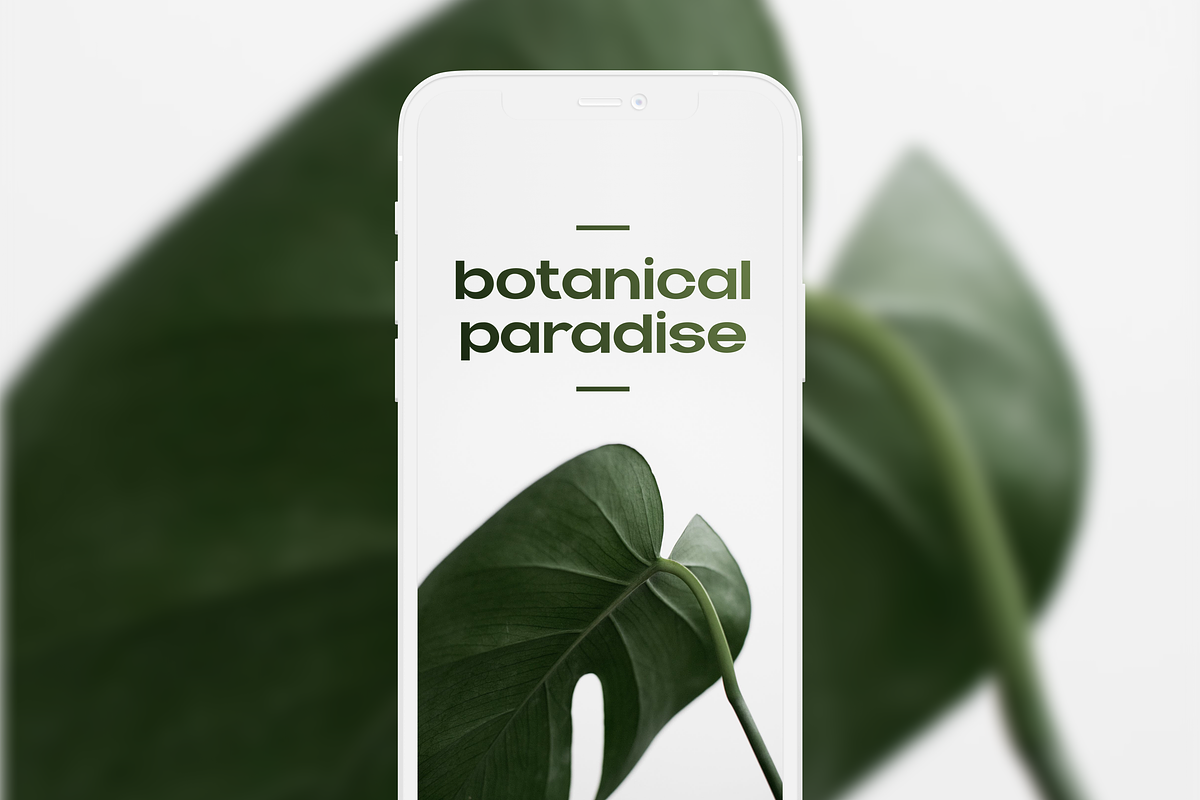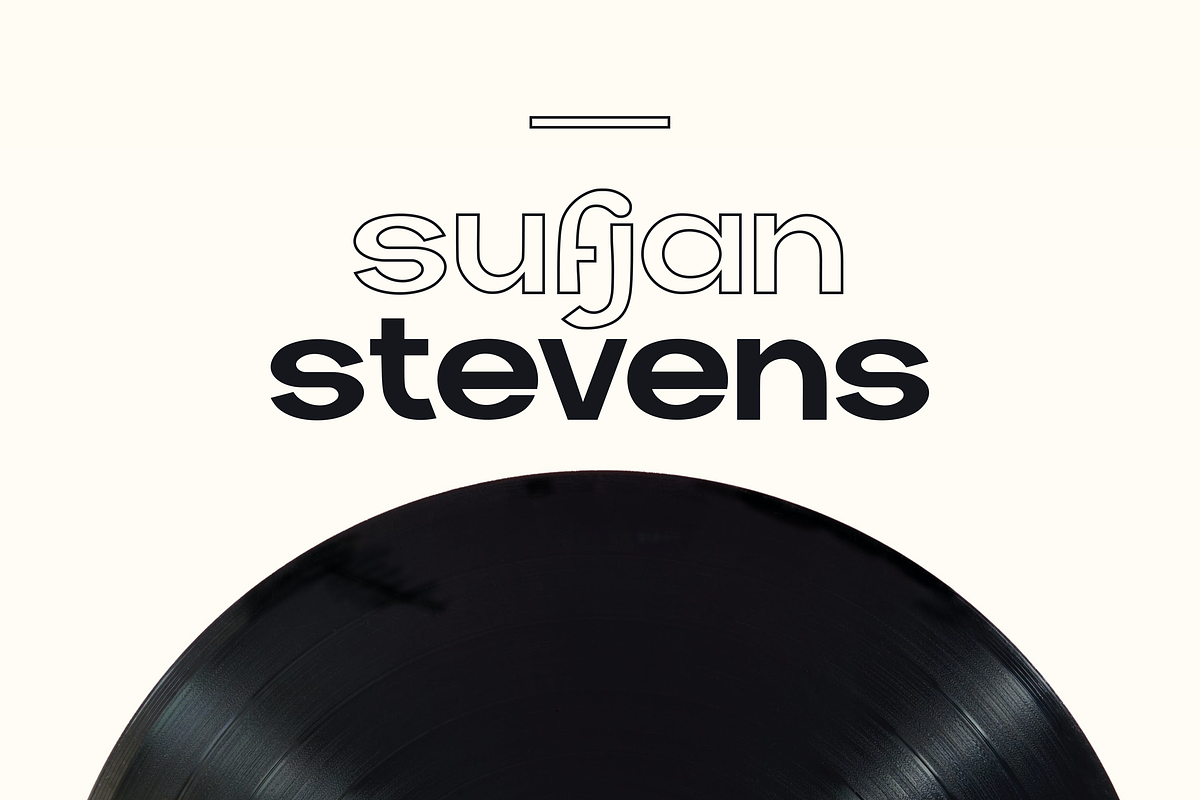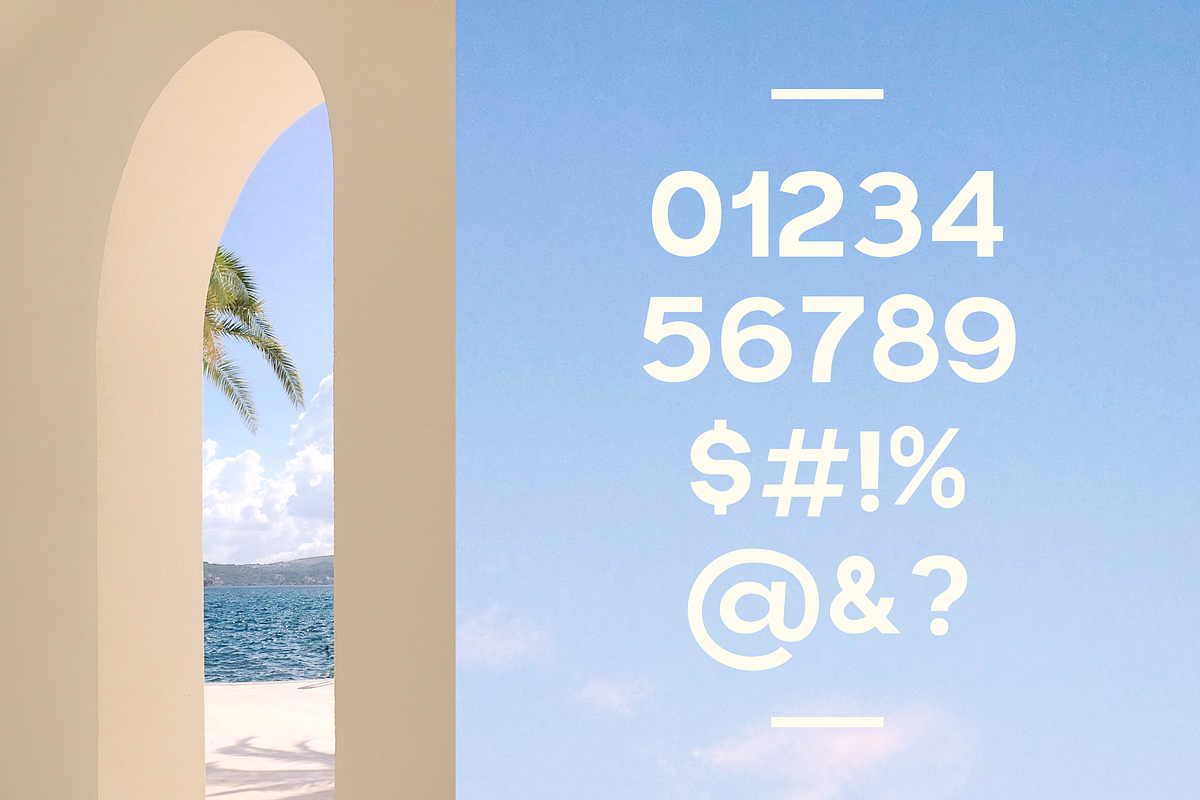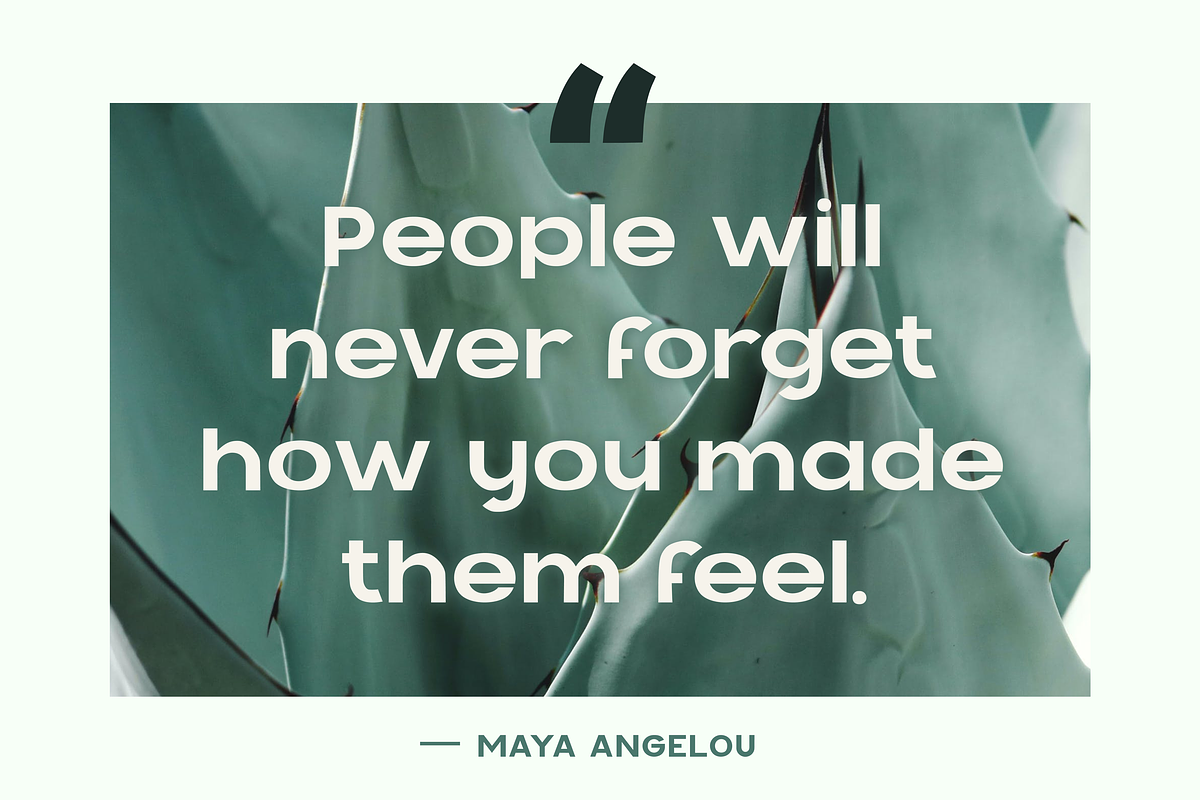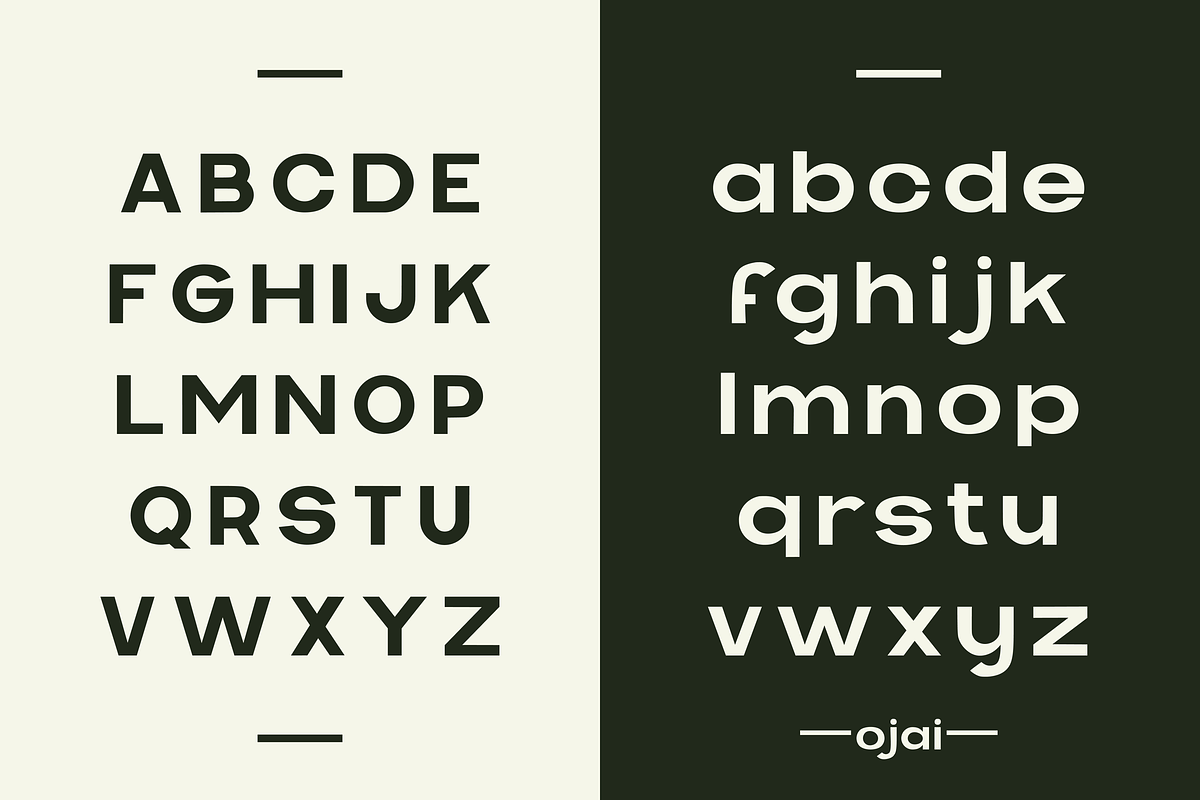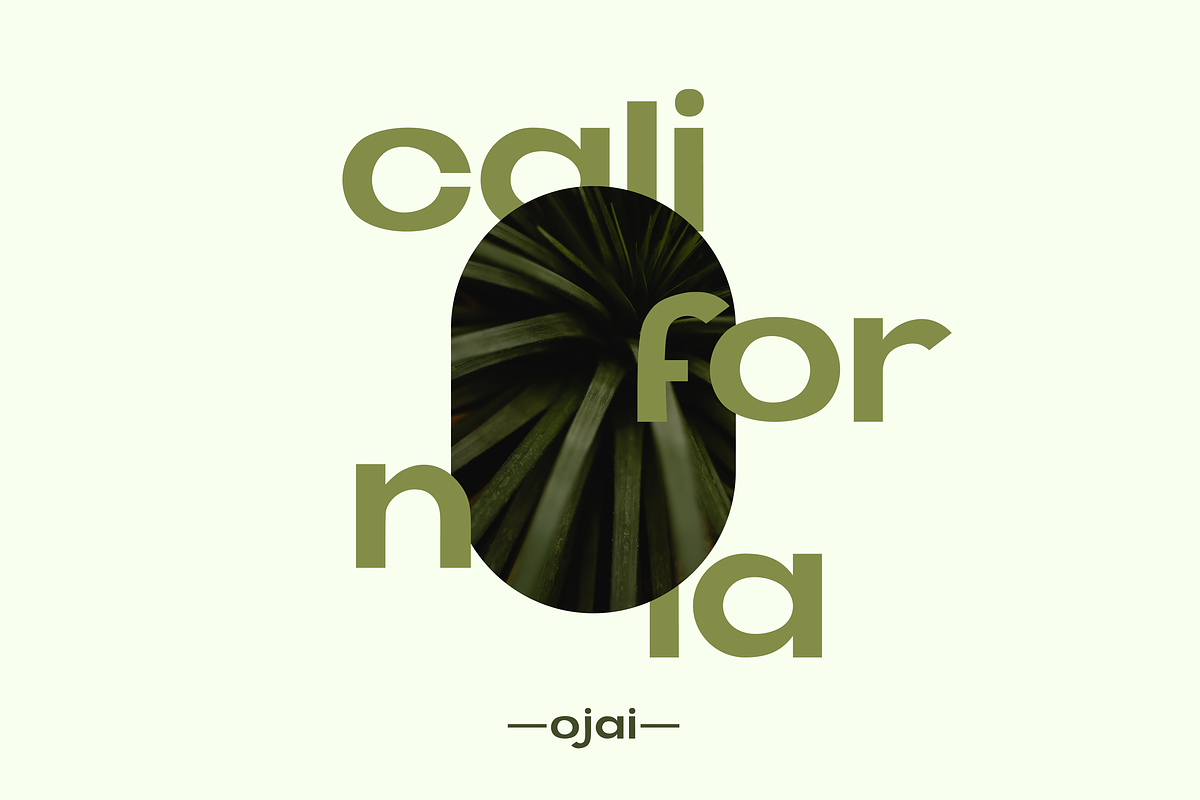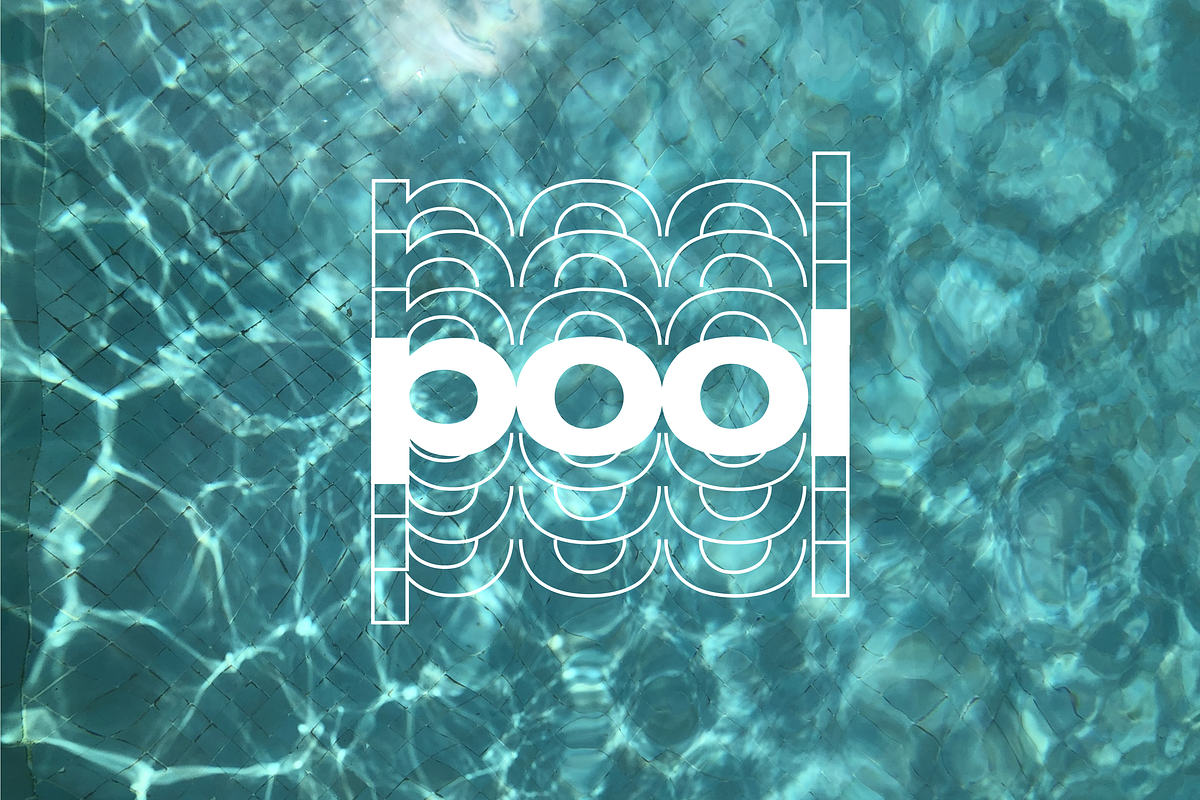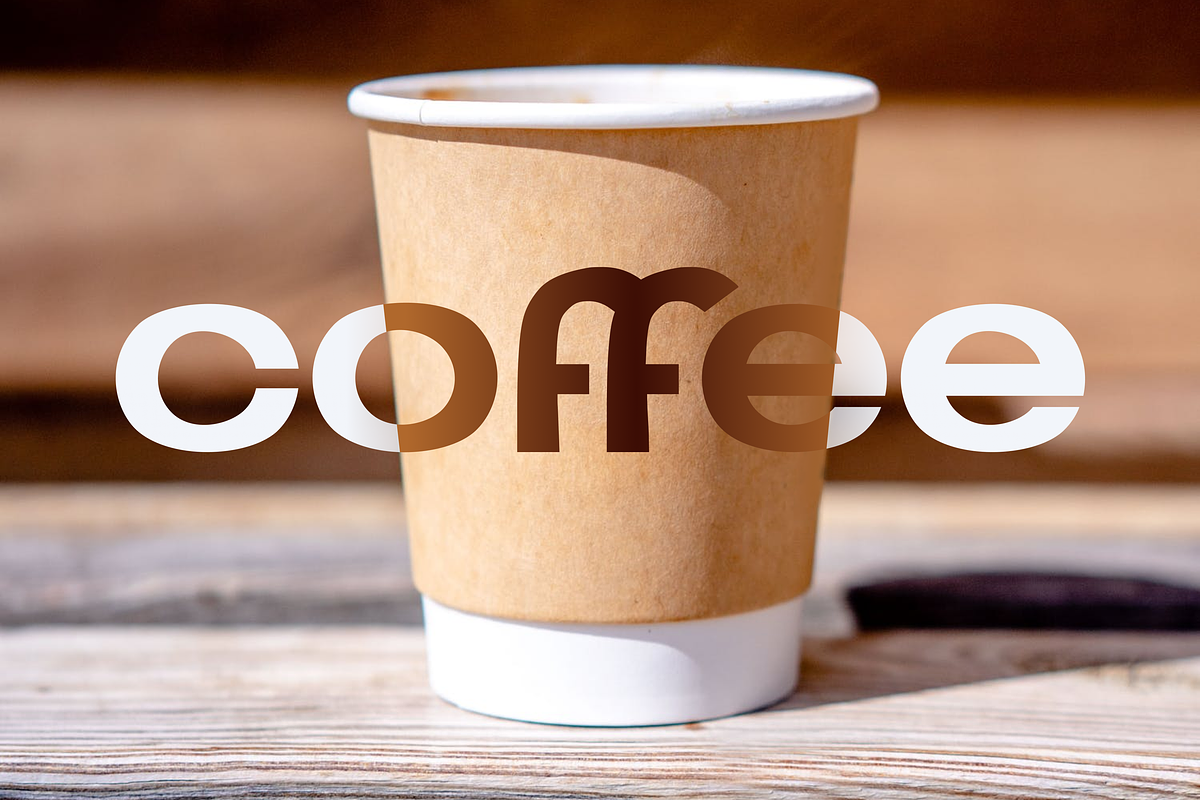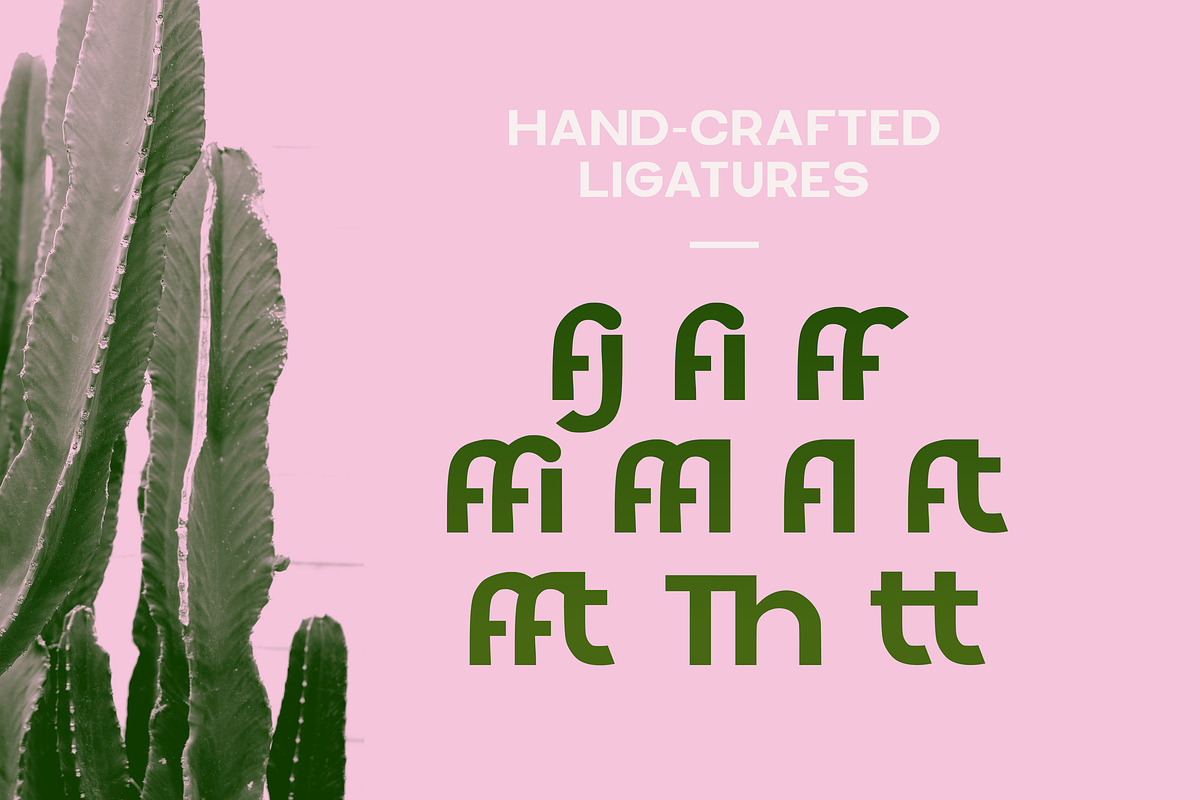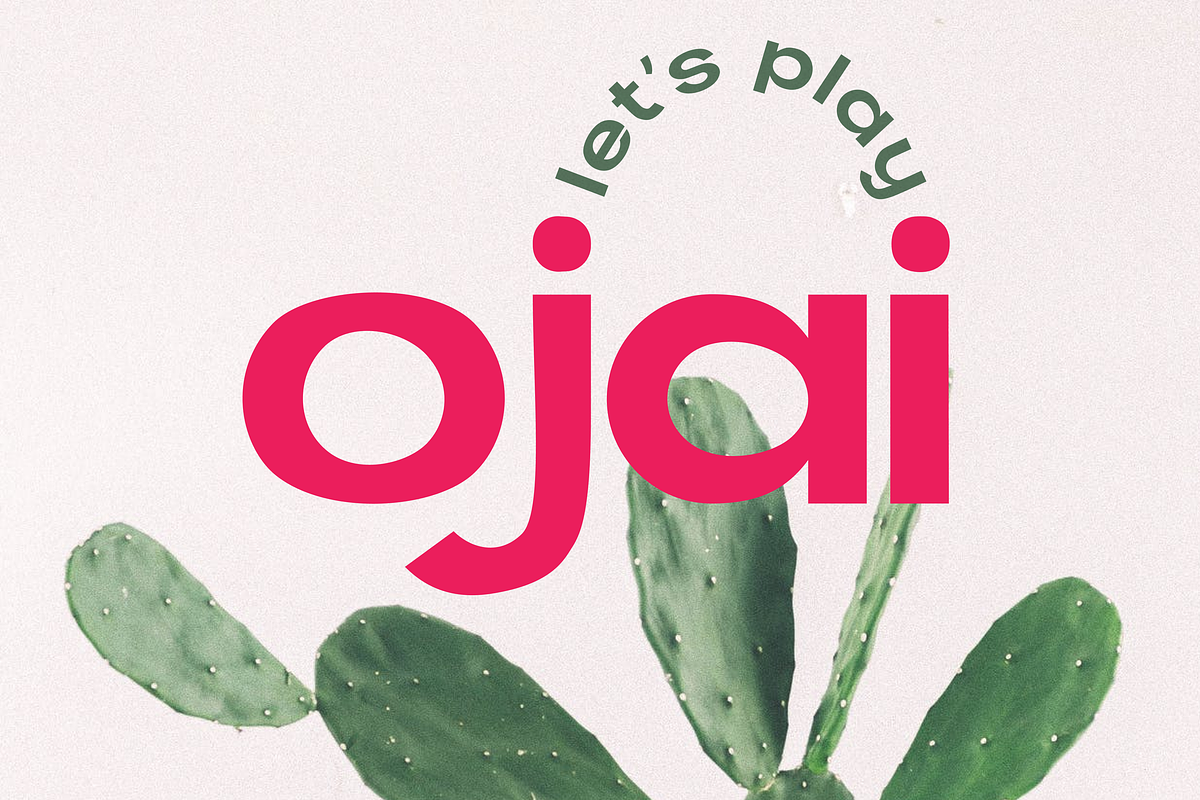
Ojai - A Modern Classic Typeface
Ojai "Oh hi" - A Modern Classic Typeface
Take your work to the next level with this flexible typeface! Ojai's boldness and simplicity give an elegant and playful look to branding projects, websites and mobile apps, holiday cards, wedding invitations, quotes, and more. Ojai is a flexible typeface designed to support your work digitally and for print, and it's one you'll come back to again and again. It's time to create something amazing with Ojai.
- 100+ professionally designed, kerned, and refined characters
- Uppercase characters
- Lowercase characters
- Elegant ligatures
- Flexible numerals, punctuation, and symbols